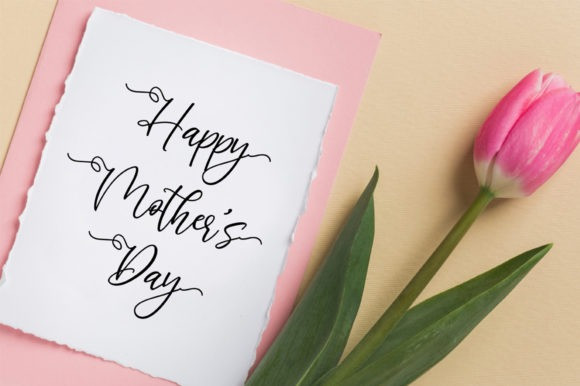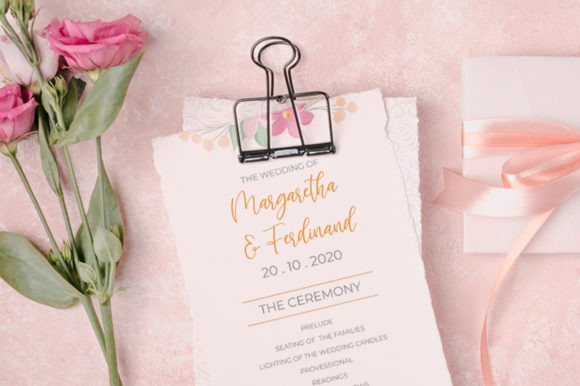
Falencia Script Font
Introducing our New Font, very suitable as to make adorable invitation for wedding, birthday, special day. A collection of letters and numbers suitable your projects also great for Logotype, Branding Design, Logo Design, Digital Lettering Arts, T-Shirt/Apparel, Poster, Magazine, Signs, Advertising Design, and also perfect for your other projects branding.